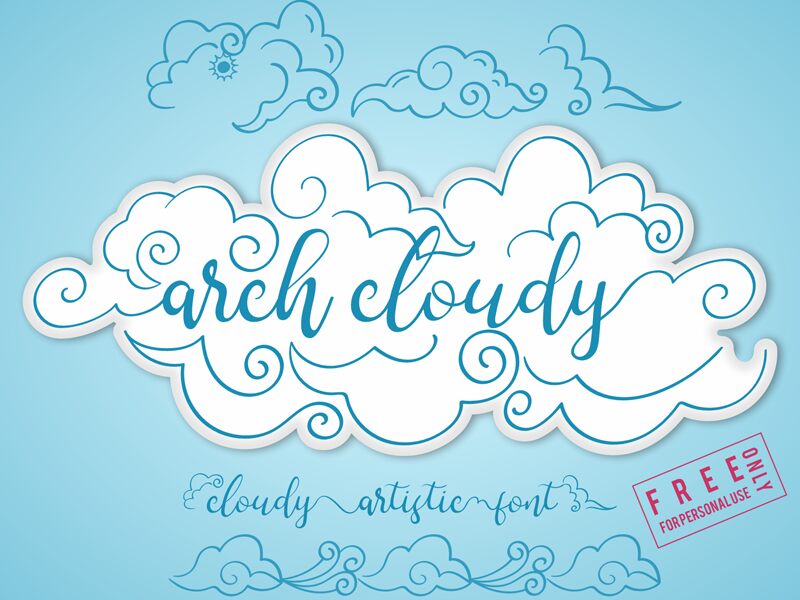
Arch Cloudy is a stylish font decorated with gorgeous cloud ornaments. You can make beautiful calligraphy writing by simply adding beautiful ornaments by typing symbols.
Imaginatype
Nuryanto Dwi